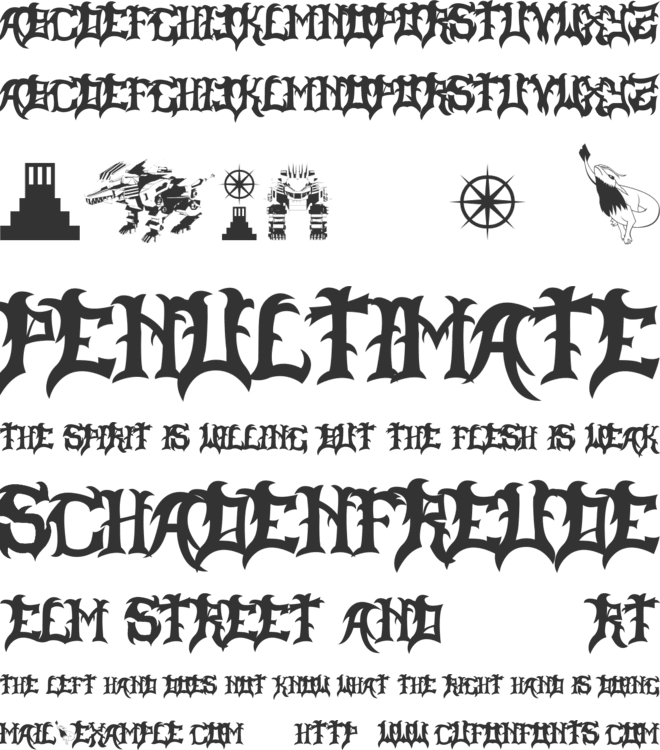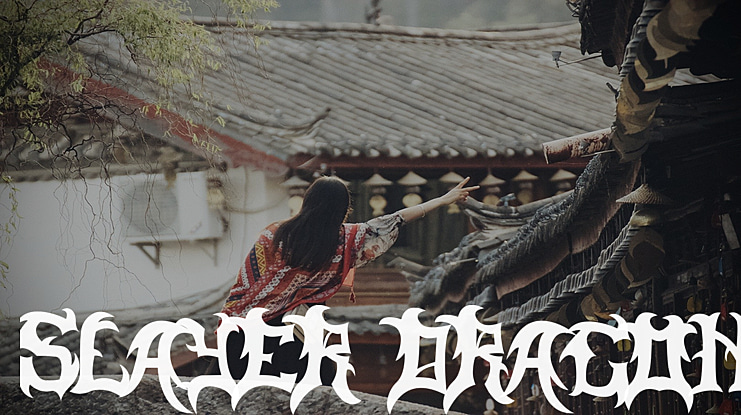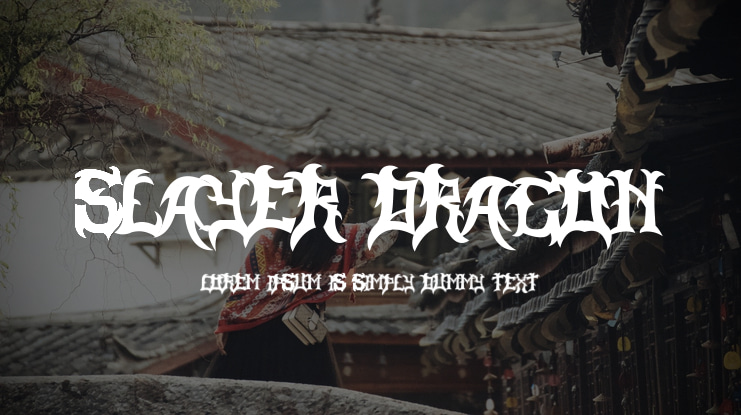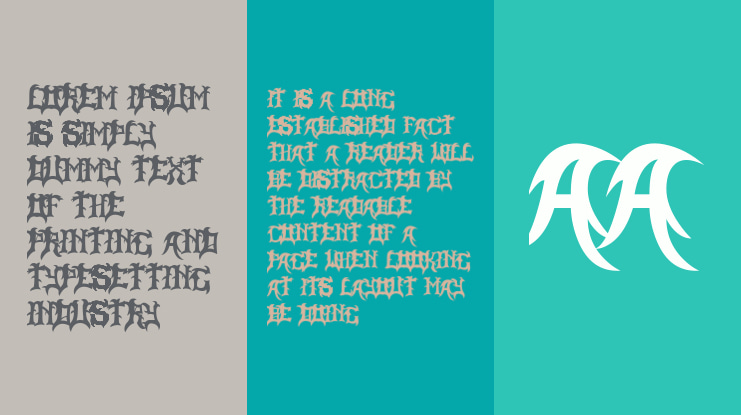
Slayer Dragon Font
A font comissioned by my good friend and author Rick Austinson for his upcoming Consecution Books series. This is a Medieval font for a map. This font is intended to look both Old, Demonic, and Wicked. Kind of Fantasy with a slight Graffiti flair. Check out the book at http://thecoursebooks.com/